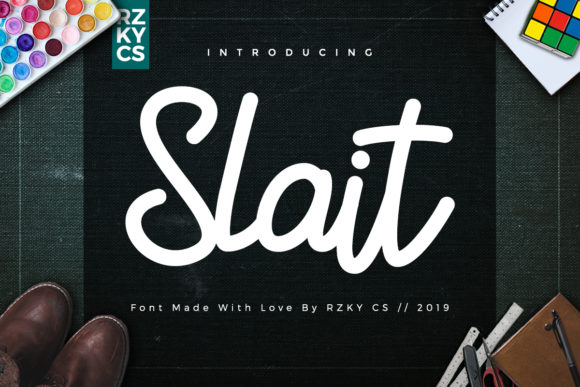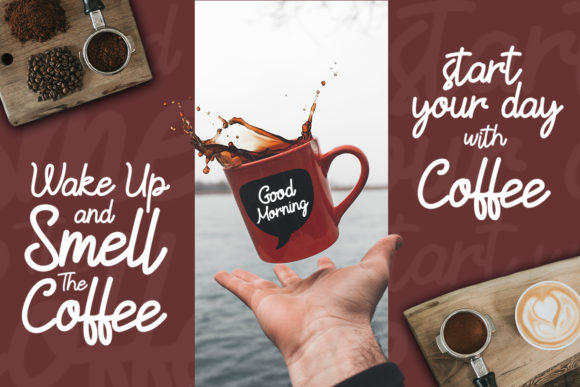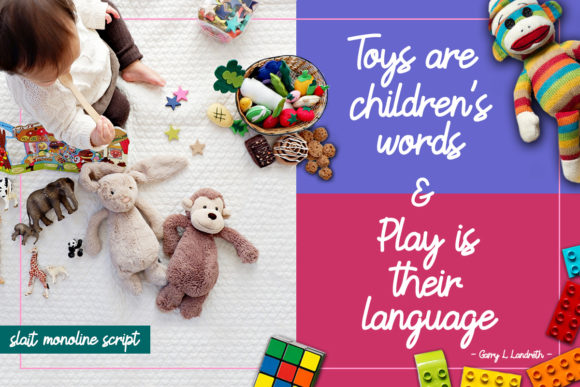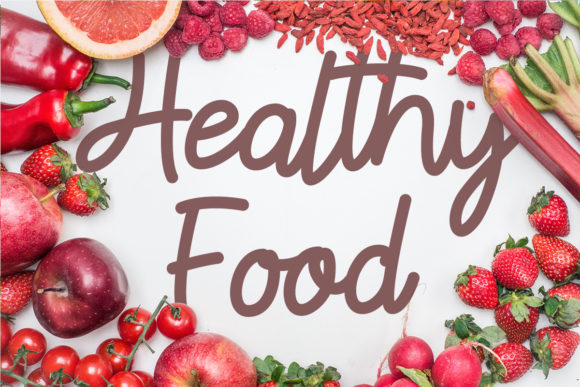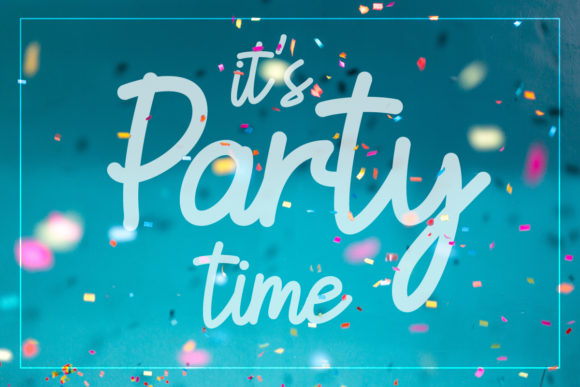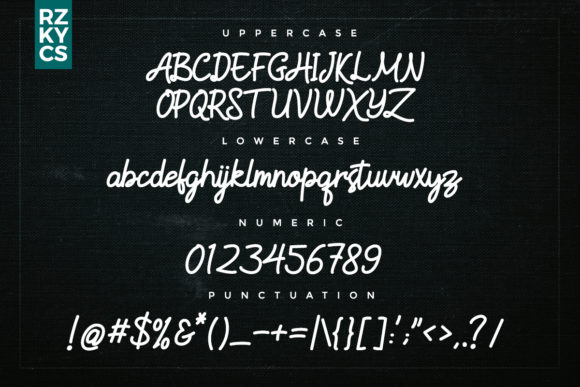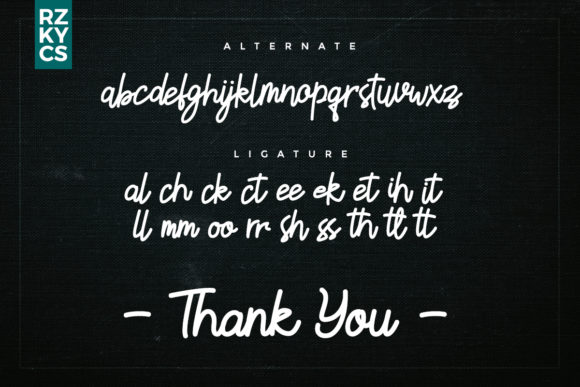
Slait Font
About Slait Font
Slait is a sweet and cool monoline handwritten font with a simple vibe. It will add a charming touch to any design project!